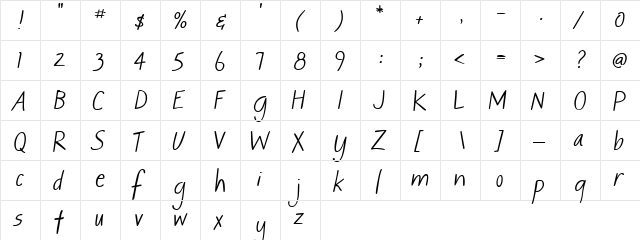
AL Flighty Regular
Design Context for AL Flighty Typeface
AL Flighty is a composed and adaptable typeface that performs quietly and consistently across a wide range of design contexts. The delicate stroke weight brings airiness and refinement to layouts.